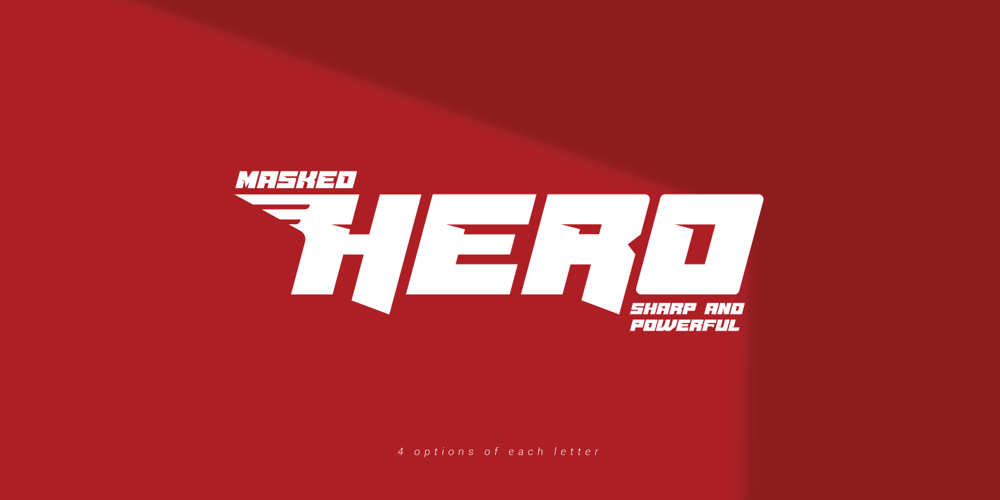
Masked Hero Font Family was designed by Ari Juanda and published by Linecreative. Masked Hero contains 1 styles and family package options. Introducing “Masked Hero,” a dynamic and commanding font that stands tall as a bold, oblique, all-cap typeface. This font is not just a collection of letters; it’s a visual narrative of strength, speed, and superhero prowess. “Masked Hero” takes typography to new heights by incorporating uppercase letters adorned with intricate wing patterns, elevating your design into a powerful champions.The uppercase characters in “Masked Hero” aren’t just letters; they’re symbols of superheroic identity, each adorned with wing-like patterns that evoke a sense of flight and strength. These letters become the emblem of your design, embodying the essence of masked heroes ready to leap into action.To provide designers with unparalleled flexibility, “Masked Hero” is equipped with alternates for both uppercase and lowercase letters. This feature allows you to customize the appearance of your text, giving you the creative freedom to push the boundaries of typographic design. The alternates enhance the visual impact of your message, ensuring that every word becomes a statement.With a sharp and bold aesthetic, “Masked Hero” is tailor-made for projects that demand speed, strength, and a touch of superhero flair. Whether you’re designing a logo for a masked vigilante, creating dynamic sports-themed graphics, or crafting the name of a superhero, this font is your ally in making a bold statement.Masked Hero offers you:1. 4 options of letters, All Caps (All options of the characters are included in one font)2. Numbers and Punctuation3. Multilingual Support (Latin Western Europe)